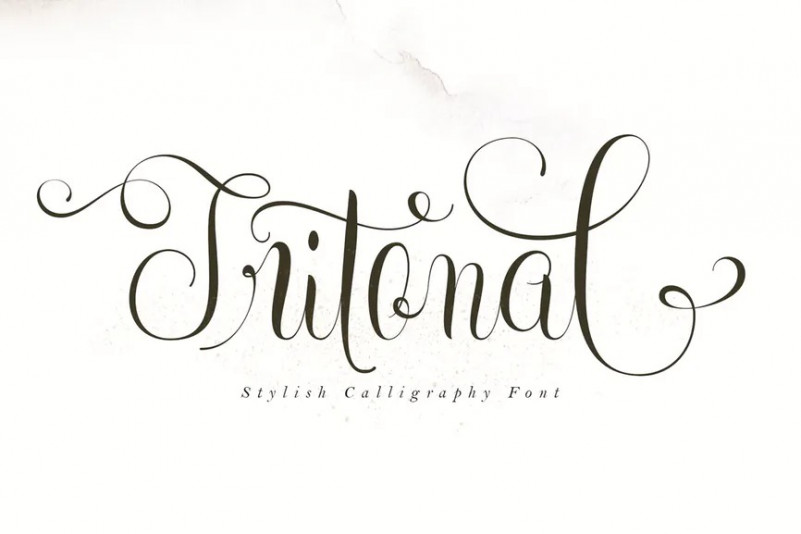
Tritonal Font
Tritonal Script. Designed to connected each other, convey elegance and style. Thin and thickness, feminine and friendly. Tritonal Script will work perfectly for fashion, e-commerce brands, trend blogs, invitation, product packaging, hand-written quote, greetings card, labels, logos, magazines, books, greeting/wedding cards, packaging, stationery, novels, labels or any type of advertising purpose.